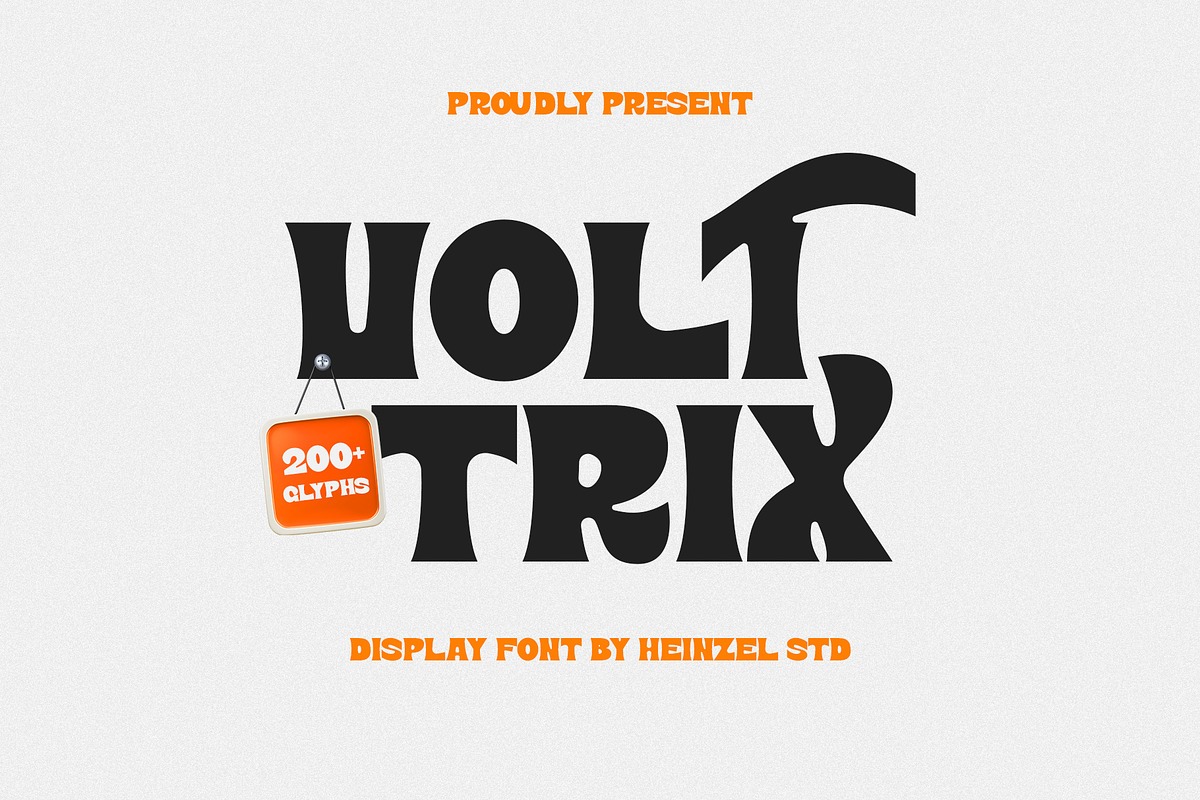
Volt Trix Font
Volt Trix Font is a bold display font designed to deliver high energy, strong visual impact, and modern attitude through powerful typography. Built with thick strokes, sharp details, and confident letterforms, Volt Trix is created for designs that need to stand out instantly. This font is ideal for designers who want bold typography that feels dynamic, expressive, and unmistakably modern.
As a bold display font, Volt Trix performs best in large sizes where its structure and personality can shine. Its aggressive yet controlled design makes it perfect for branding, logos, headlines, posters, packaging, gaming visuals, music artwork, advertising, and promotional graphics. Volt Trix brings intensity and excitement to typography, helping designs capture attention in competitive visual environments.
✨ About Volt Trix Font
Volt Trix is designed with a focus on impact and clarity.
Each character is carefully constructed to appear strong, balanced, and visually commanding.
The font avoids unnecessary ornamentation, relying instead on bold shapes and striking geometry.
This display font is built to create immediate visual presence.
It allows designers to communicate power, motion, and modernity through typography alone.
🎯 Font Style and Key Features
Volt Trix follows a bold modern display design philosophy.
Its letterforms emphasize thickness, contrast, and sharp structure.
This font is ideal for:
Logo design
Bold branding systems
Headlines and titles
Posters and banners
Packaging design
Advertising and marketing visuals
Its design supports strong typographic hierarchy and instant readability at display sizes.
🖋️ Branding and Logo Design
As a bold display font for branding, Volt Trix creates a confident and memorable visual identity.
It communicates strength, innovation, and energy.
Volt Trix works especially well for:
Gaming and esports brands
Music and entertainment projects
Sports and fitness branding
Technology and digital products
Youth-oriented and high-impact brands
Logos created with Volt Trix feel powerful, modern, and attention-grabbing.
🎨 Creative and Promotional Design
Volt Trix excels in creative and promotional contexts.
Its bold style enhances visibility and message clarity.
Common creative uses include:
Event posters
Album covers
Social media graphics
Advertising campaigns
Promotional banners
The font adds urgency and excitement, helping content stand out instantly.
💻 Web and Digital Applications
Volt Trix adapts well to digital environments.
Its bold shapes remain clear and legible across screen sizes.
Web use cases include:
Website headers
Hero section typography
Landing page titles
Game and app interfaces
Promotional sections
The font maintains visual power on desktop, tablet, and mobile devices.
🖨️ Print Design Applications
Volt Trix delivers strong results in print.
Its heavy strokes and clear structure ensure clean reproduction.
Ideal print uses include:
Posters
Packaging
Flyers
Stickers
Merchandise
Event materials
The bold display style adds strength and modern edge to printed designs.
⭐ Why Choose Volt Trix?
Volt Trix is designed for designers who want bold, modern typography.
It balances visual aggression with functional readability.
Key advantages:
Bold modern display style
Strong visual impact
High readability at large sizes
Easy to pair with simple sans-serif fonts
Suitable for web and print projects
This makes Volt Trix a powerful addition to any display font collection.
🔤 Typography Performance and Versatility
Volt Trix supports efficient creative workflows.
Its consistent proportions reduce the need for manual kerning adjustments.
The font integrates smoothly into branding systems and graphic layouts.
It works best as a headline or accent font paired with clean body typography.
✅ Conclusion
Volt Trix is a bold display font created for branding, advertising, and high-impact design projects.
Its strong letterforms, modern structure, and energetic personality allow designers to create typography that demands attention and communicates power.
Whether used for logos, posters, digital content, or print materials, Volt Trix delivers intensity, clarity, and contemporary style that elevate visual communication.